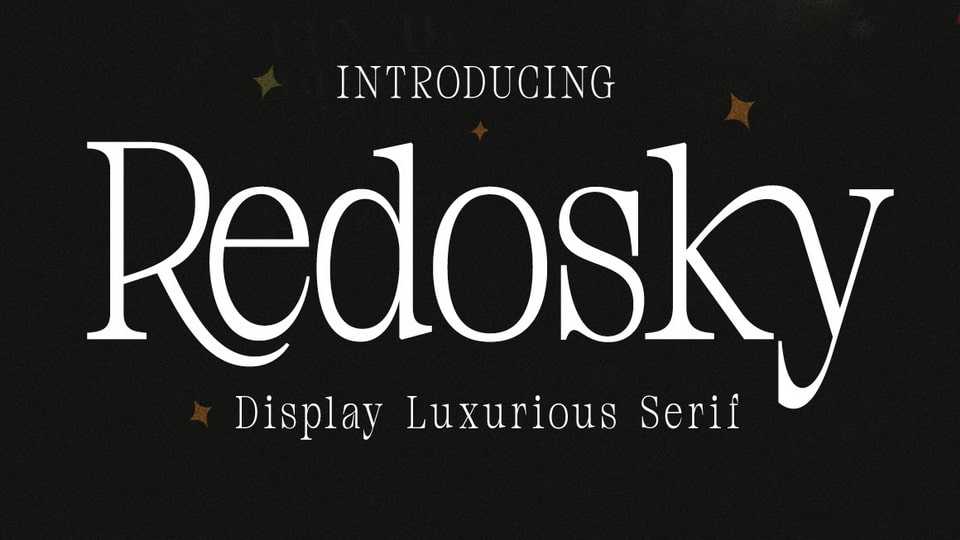
Download Redosky font, a versatile typeface with a clean, sleek serif form. The typeface as a whole is strong in conveying order and harmony between letters.